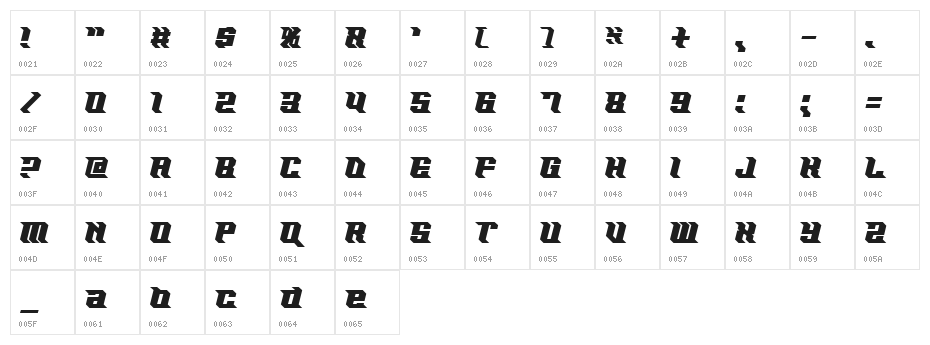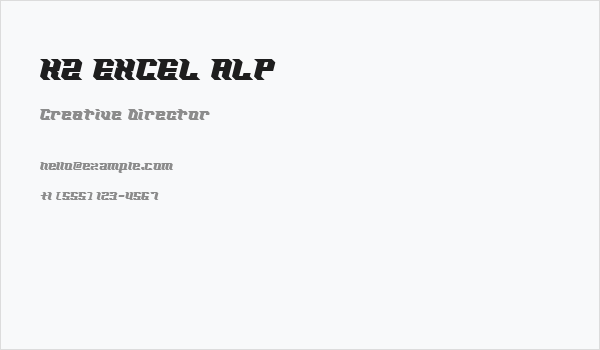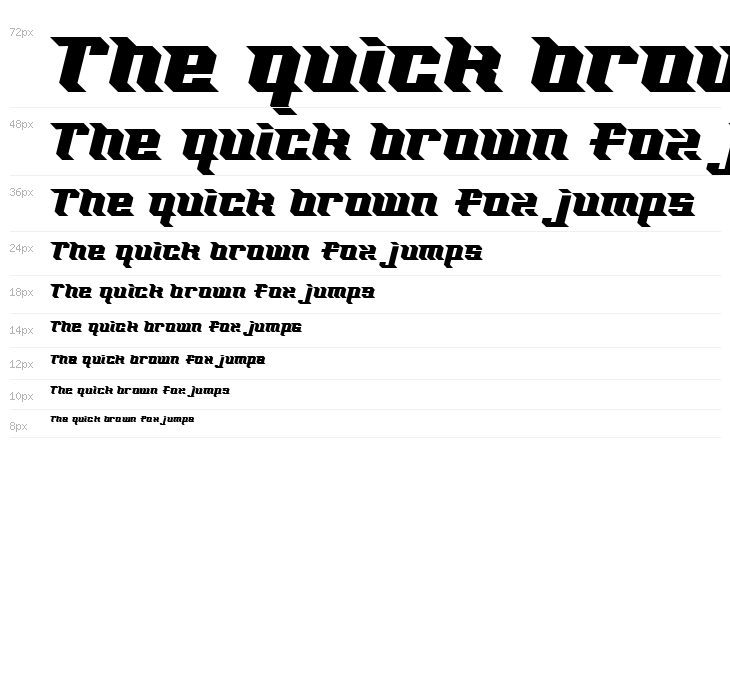
KZ EXCEL ALP Font
KZ EXCEL ALP Description
This font features a bold, angular design with a strong geometric influence. The characters are sharply defined, with a distinct block-like appearance that gives them a futuristic and industrial feel. The uppercase and lowercase letters maintain a consistent style, with sharp edges and a sense of movement. The numbers and special characters follow the same design principles, ensuring uniformity across the font. The overall aesthetic is striking and modern, making it suitable for attention-grabbing designs.